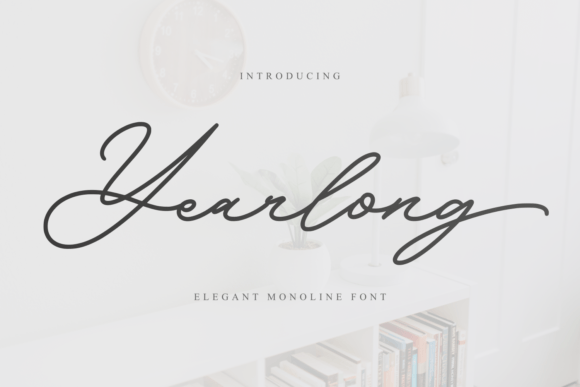
Introducing Yearlong Font, the ultimate choice for crafting captivating designs that leave a lasting impression. Step into a world of elegance and class as you embrace this enchanting monoline script font. Yearlong is not just a font; it's an invitation to embark on a creative journey where your designs take center stage.
Indulge in the artistry of Yearlong's handwritten strokes, meticulously designed to evoke a sense of timeless sophistication. Whether you're creating eye-catching logos, enchanting labels, or unforgettable invitations, Yearlong has the power to transform your visions into reality. It's the perfect font for adding a touch of refinement to your branding, making your designs shine brighter than ever before.
Picture your website adorned with the graceful curves of Yearlong, captivating visitors with its undeniable charm. Enhance your quotes with an air of wisdom and inspiration, as Yearlong's delicate strokes bring your words to life. Let Yearlong be the secret ingredient that elevates your designs, making them stand out from the crowd and leaving an unforgettable mark on all who encounter them.